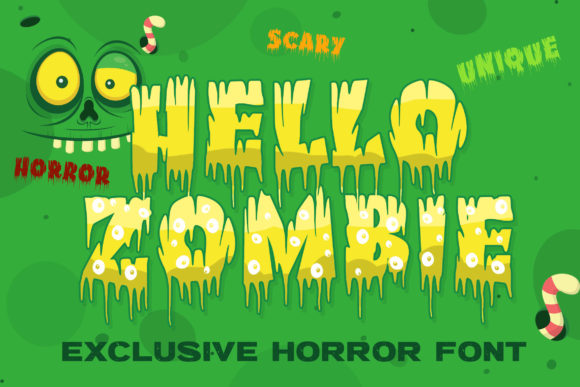
**Introducing the "Hello Zombie" font - your ticket to spine-tingling designs!**
Are you ready to give your projects a touch of the thrilling and macabre? Look no further than Hello Zombie, the wickedly stylish decorative font that will cast a spell on your audience.
Imagine your Halloween flyers, invitations, or October-themed designs adorned with this hauntingly beautiful font. Its eerie yet captivating strokes will make your creations jump off the page and send shivers down the spines of beholders.
Hello Zombie is not just for Halloween enthusiasts though. Its versatility knows no bounds, extending to any project that craves a touch of the extraordinary. From business grants to invitations, this font has the power to transform the ordinary into the unforgettable.
Picture your business proposals imbued with an air of intrigue and uniqueness, thanks to Hello Zombie's spine-chilling charm. Or envision invitations for a special event, their elegance enhanced by the font's macabre beauty.
Crafted with precision by the masters at Fontherapy, Hello Zombie is a font that speaks volumes without uttering a word. Its every curve and stroke is a testament to the power of creativity and the allure of the unconventional.
So, dive into the thrilling world of Hello Zombie and let your imagination run wild. With this font at your fingertips, you'll have the power to create designs that are as captivating as they are unforgettable. Prepare to make your mark on the world, one spooky letter at a time!